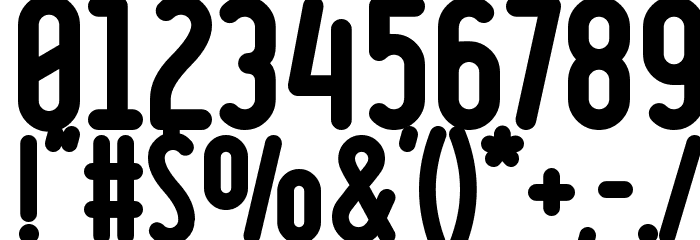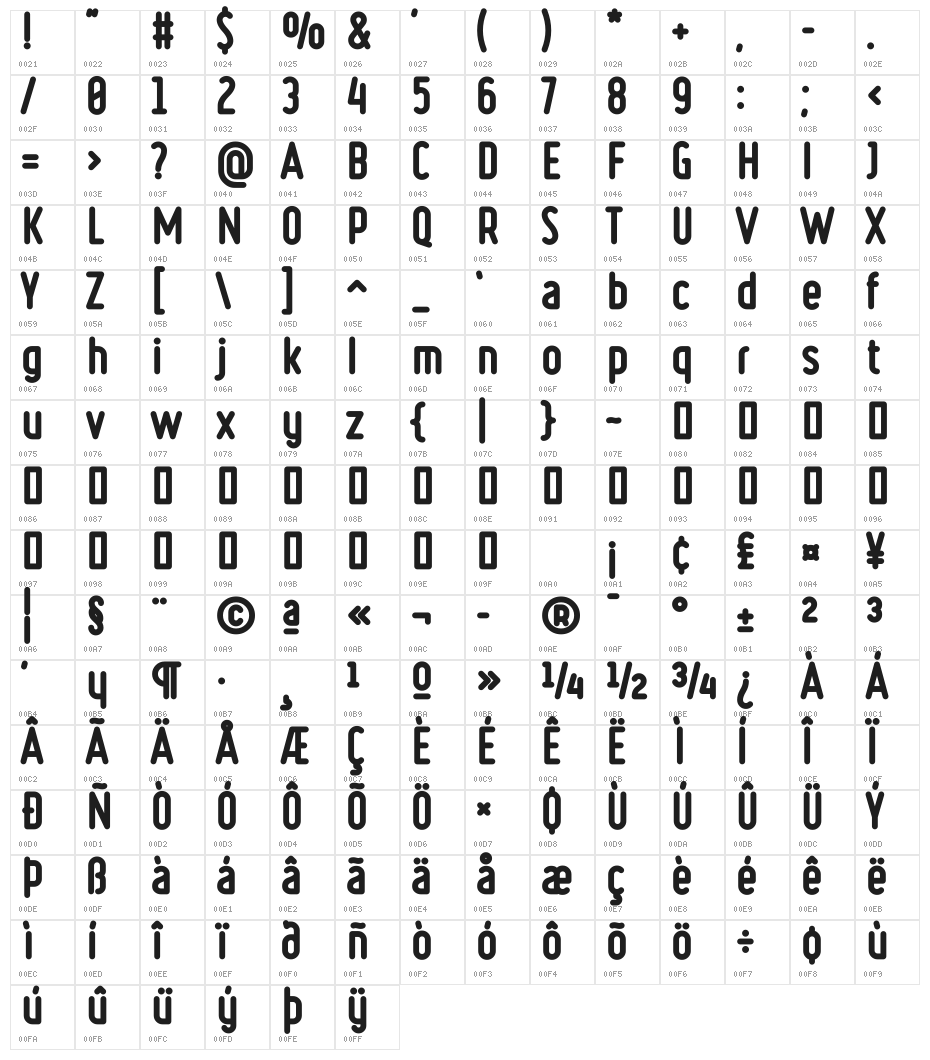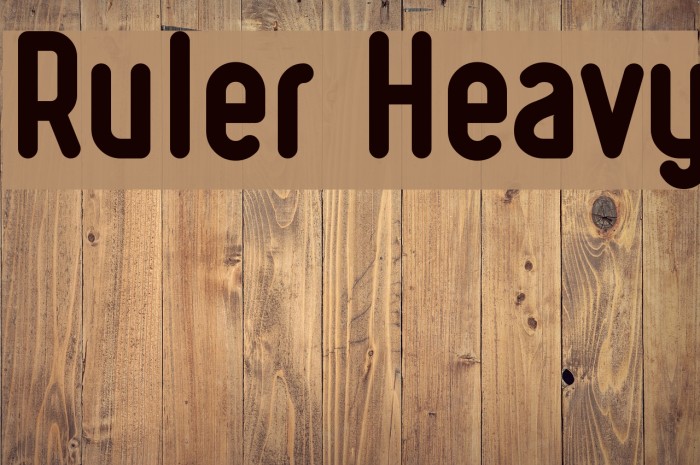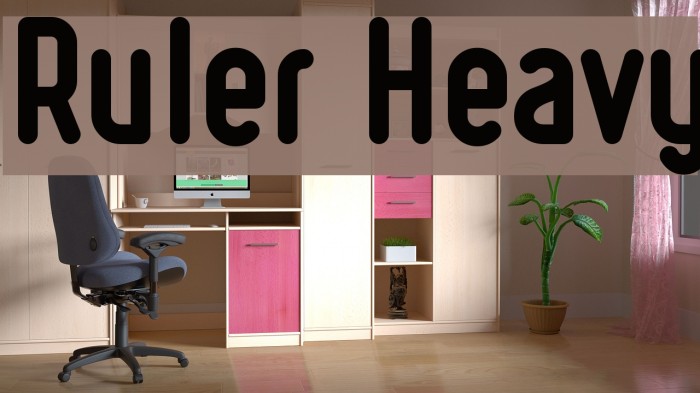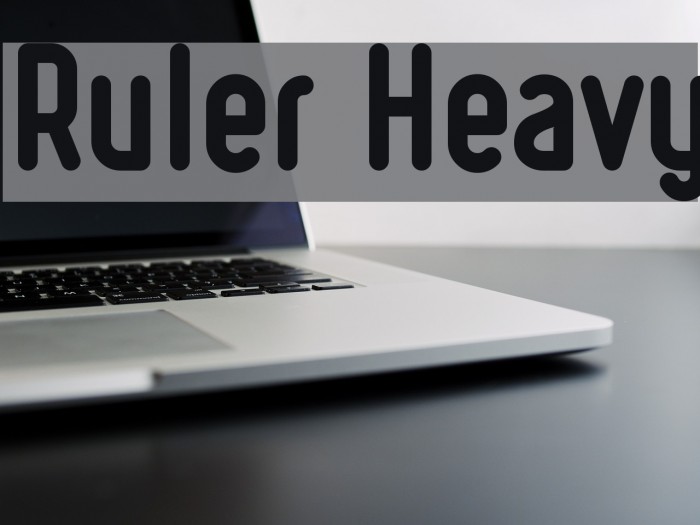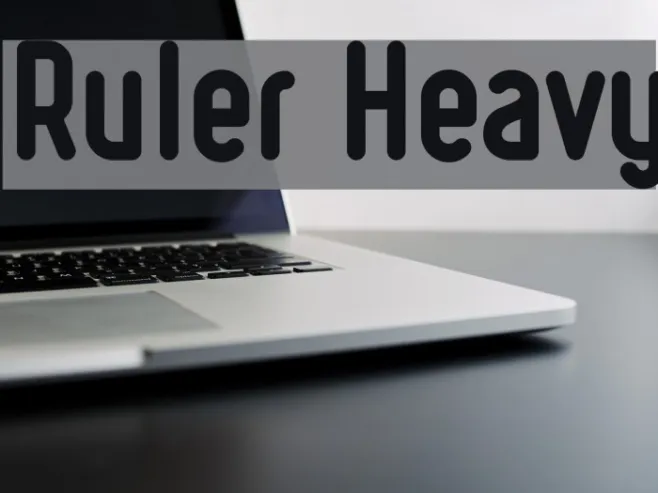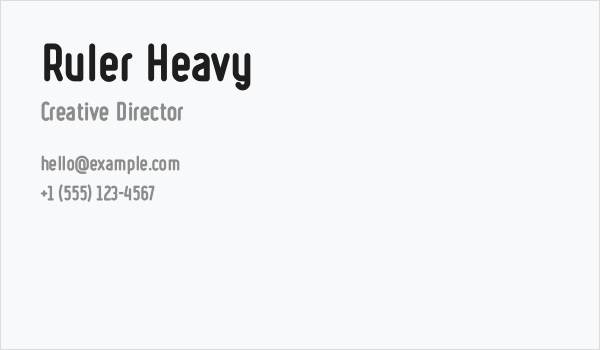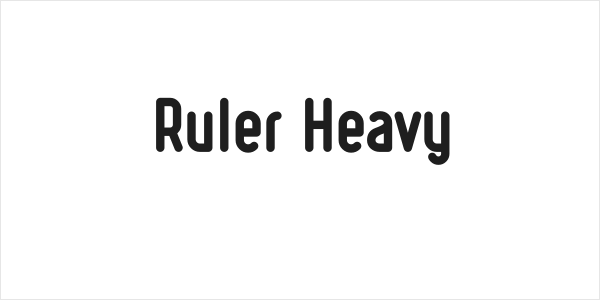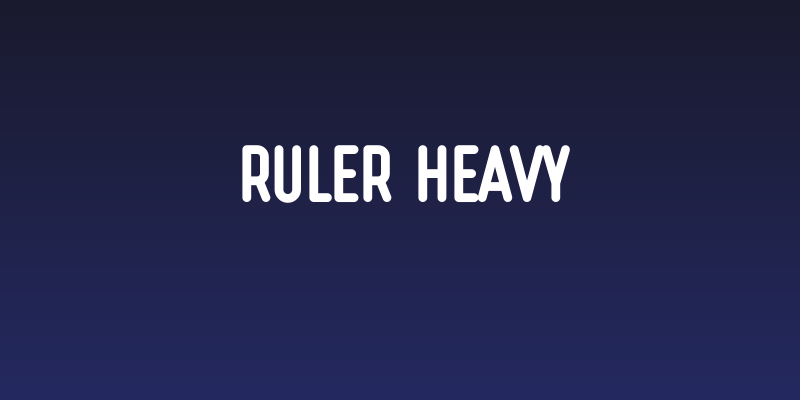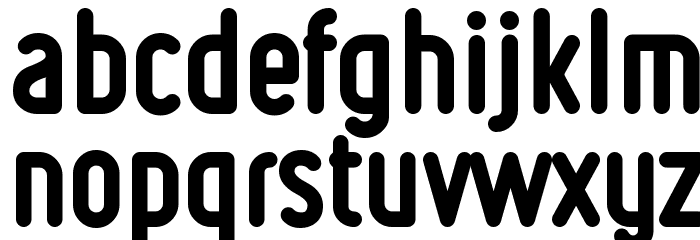
Ruler Heavy Font
Ruler Heavy Description
This font features bold, rounded characters with a modern and friendly appearance. The letters are uniformly thick, giving a strong and confident look. The rounded edges soften the overall feel, making it approachable and versatile. The numerals and special characters maintain the same boldness and rounded style, ensuring consistency across all elements. This font is highly legible and stands out due to its substantial weight and smooth curves, making it ideal for attention-grabbing designs.
| Proposed Projects | Ideal for branding, headlines, posters, and advertising where a strong, friendly impact is desired. |